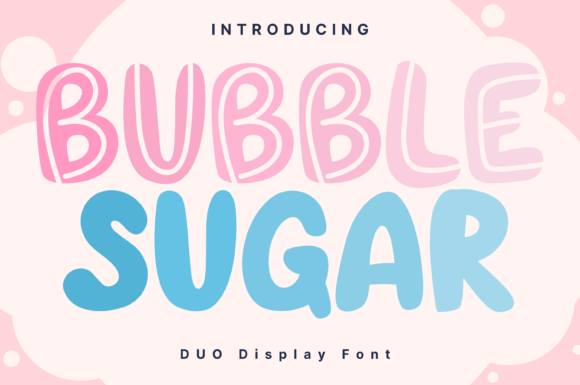
Introducing Bubble Sugar Font, the ultimate font for speech bubbles that will bring your creative ideas to life! Created by AchiArt, this whimsical and clean display font is the perfect addition to any project, giving it a unique and eye-catching touch.
With Bubble Sugar Font, your designs will instantly stand out from the crowd. Its playful and charming style adds a touch of magic to any text, making it perfect for children's books, invitations, greeting cards, and so much more. Let your imagination run wild and watch as Bubble Sugar Font transforms your ideas into captivating masterpieces.
This font is incredibly versatile and can be matched to an incredibly large set of projects. Whether you're designing a logo, creating social media graphics, or crafting a poster, Bubble Sugar Font will elevate your designs and make them truly memorable. Its clean and legible characters ensure that your message is easily conveyed while adding a touch of whimsy and creativity.
But Bubble Sugar Font is not just about aesthetics. It also delivers a powerful emotional connection. Its delightful and cheerful appearance evokes feelings of joy, playfulness, and innocence, instantly capturing the hearts of your audience. Whether you're targeting children, parents, or anyone who appreciates the beauty of design, Bubble Sugar Font will make a lasting impression.